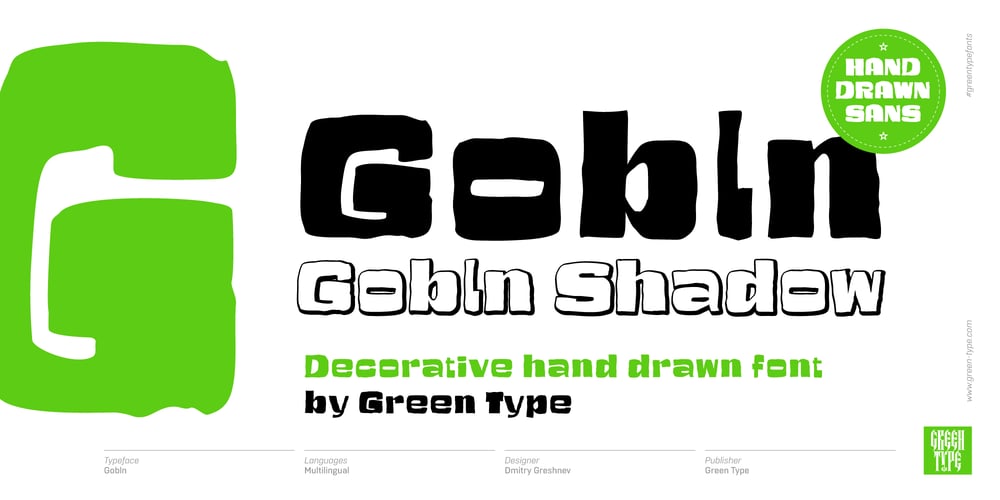
Gobln Font Family was designed by Dmitry Greshnev and published by Green Type. Gobln contains 2 styles and family package options. Gobln is a decorative font. Designed for use in posters, outdoor advertisements, branding, packaging andweb sites. Gobln is also perfect for use in the design of invitations and greeting cards.Gobln contains basic and alternative stylistic sets, decorative swash initials & final forms, and standart ligatures that will decorate your design.